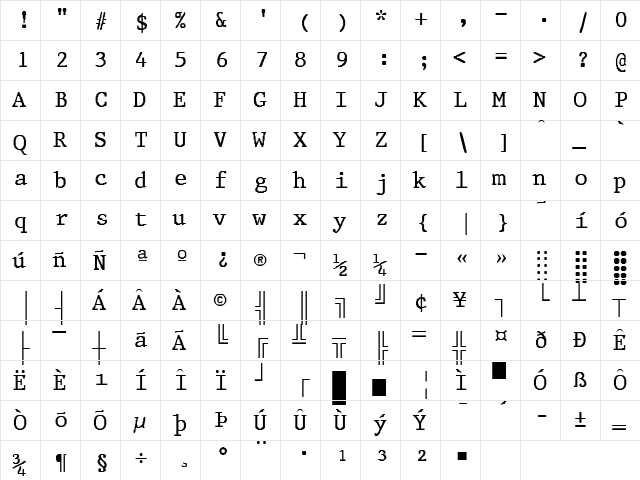
Prestige Normal Font Preview
Prestige Normal
Design Context for Prestige Typeface
Prestige is a composed and adaptable typeface that performs quietly and consistently across a wide range of design contexts.